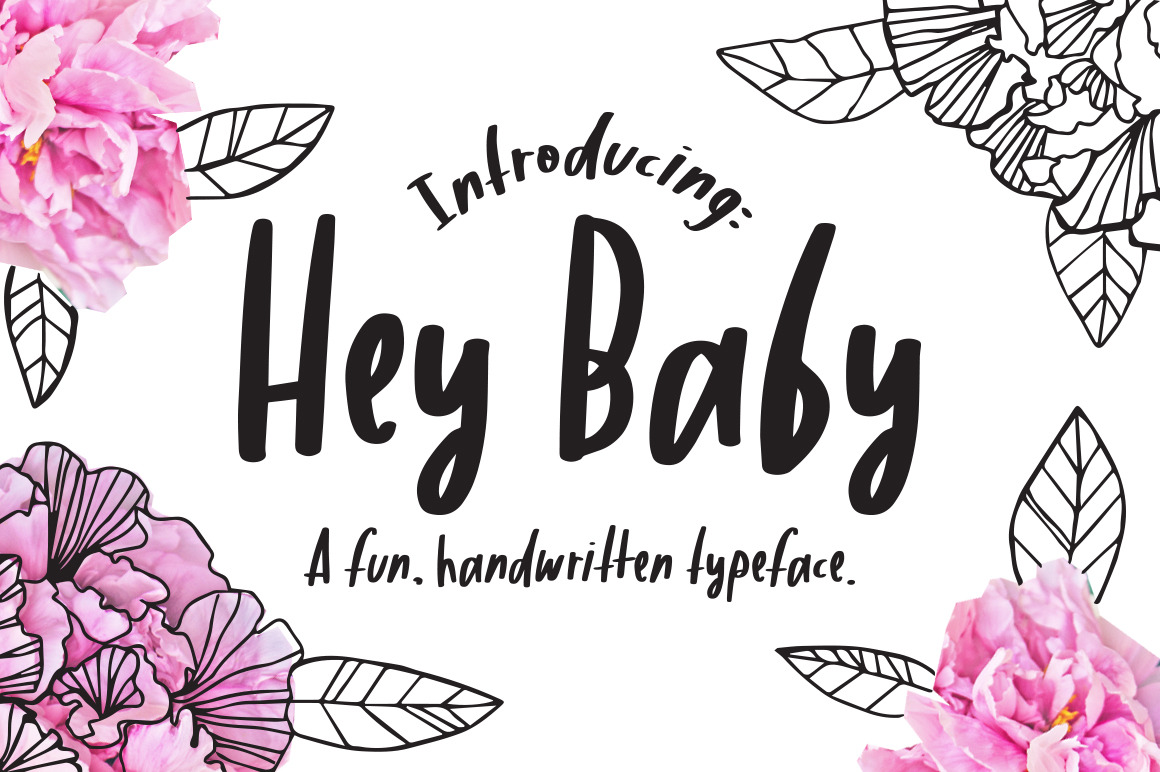
Hey Baby- handwritten typeface
Say "Hey!" to Hey Baby, a new and fun hand-written typeface. It's sweet and casual and gives a free-spirited touch to any of your projects. Alternate between the upper and lower case letters to get different looks!
Includes international characters.